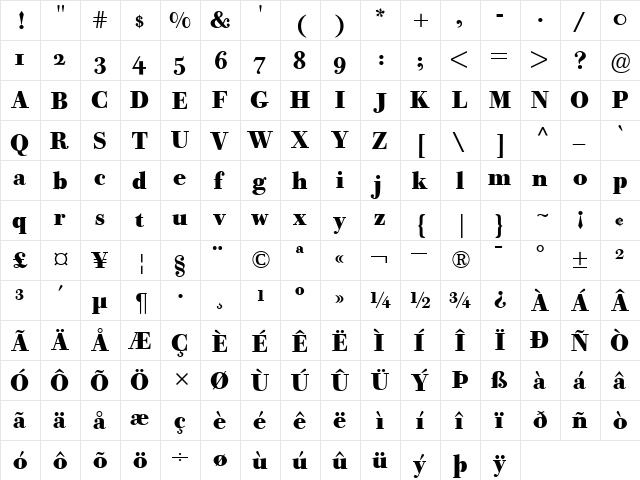
BodoniOldFaceBEOldstyleFigures Bold Font Preview
BodoniOldFaceBEOldstyleFigures Bold
Design Context for BodoniOldFaceBEOldstyleFigures Typeface
BodoniOldFaceBEOldstyleFigures brings classic typographic sensibility to the table — its serifs and measured letterforms reflect centuries of print heritage. Its bold stroke weight gives it real presence on the page.
Pro Tip: Use BodoniOldFaceBEOldstyleFigures for editorial body copy and considered headline work. Pair with a neutral sans for UI elements or captions to create a classic hierarchy.